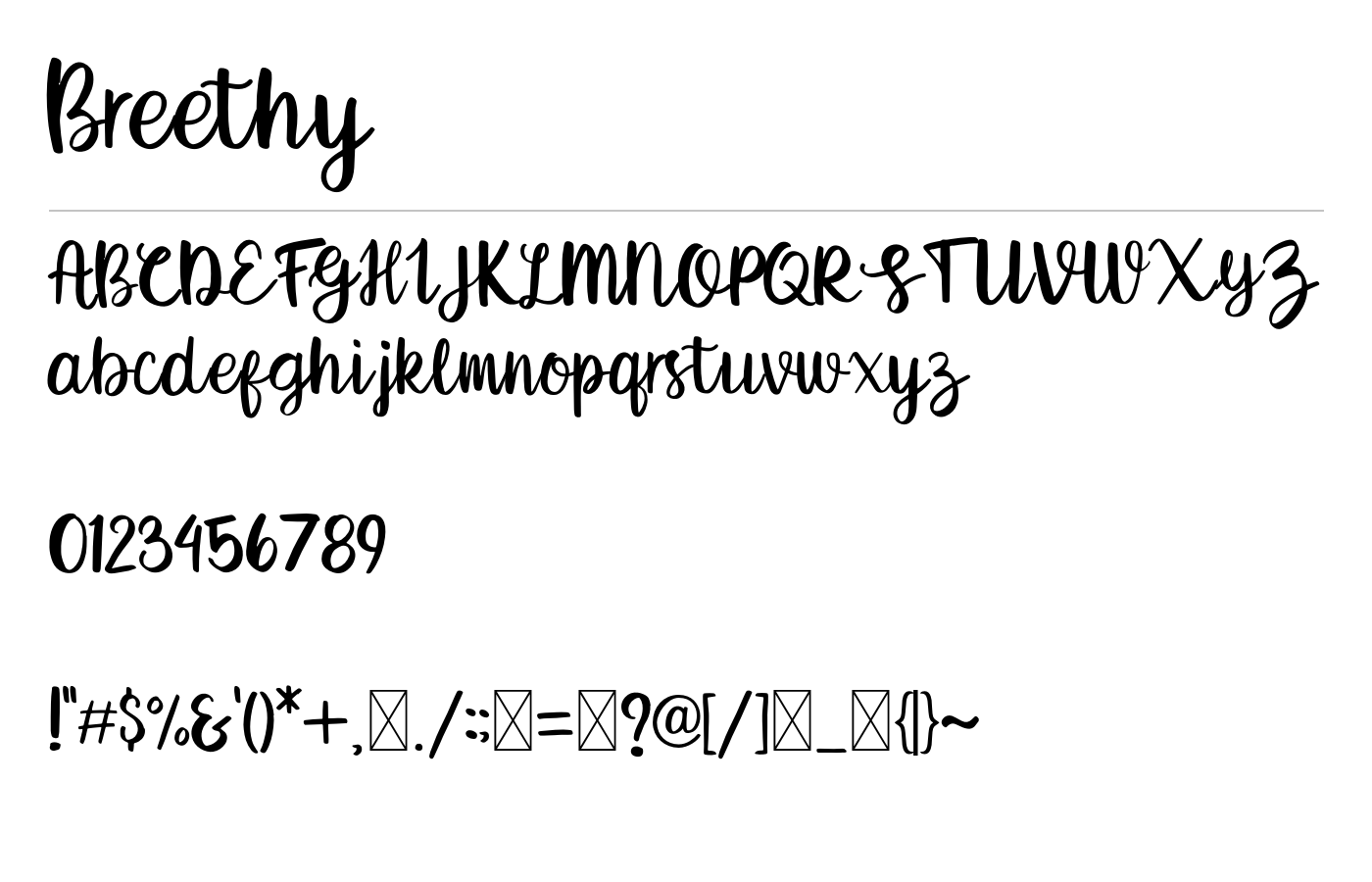
Breethy is a playful and casual handwritten script font with a lively, friendly feel. Its smooth, rounded strokes and moderate x-height make it perfect for adding a personal, approachable touch to branding, invitations, and social media graphics. This font works well in creative, informal contexts where a warm and inviting aesthetic is desired.
Breethy Font
About Breethy Font